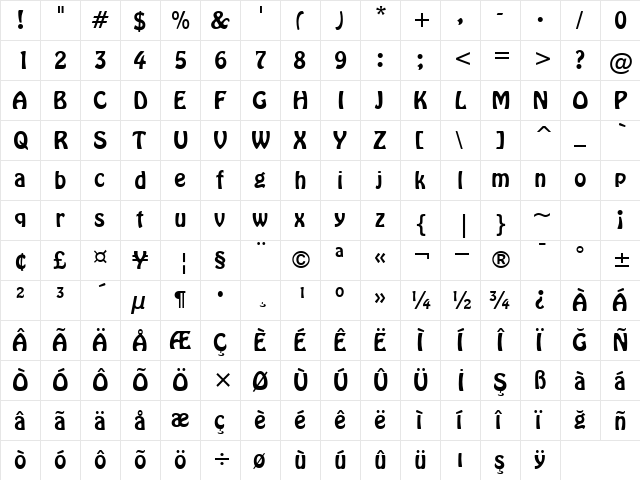
00333 Regular
Design Context for 00333 Typeface
00333 offers clean, dependable letterforms without strong stylistic allegiance, making it a practical choice for designers who need flexibility.